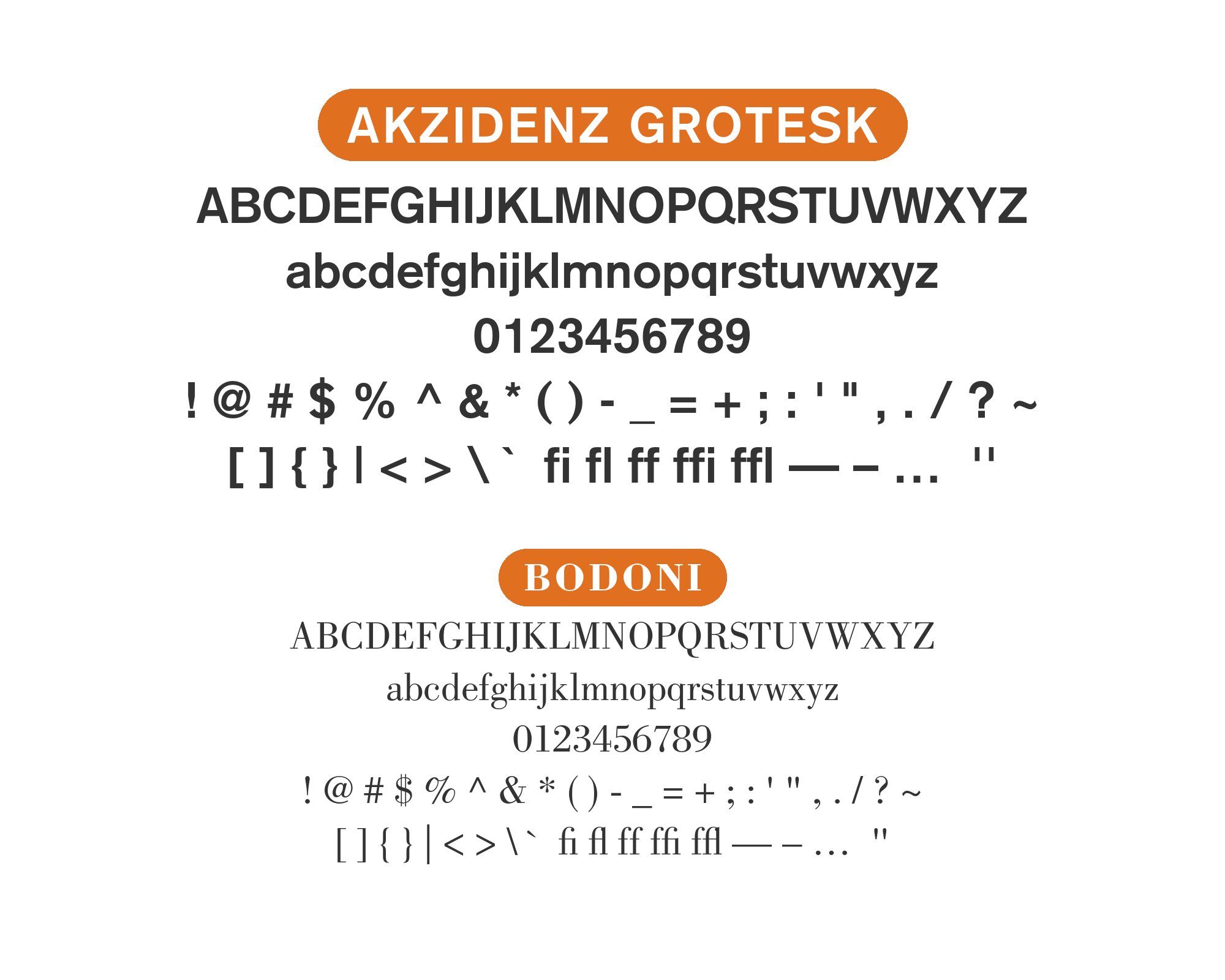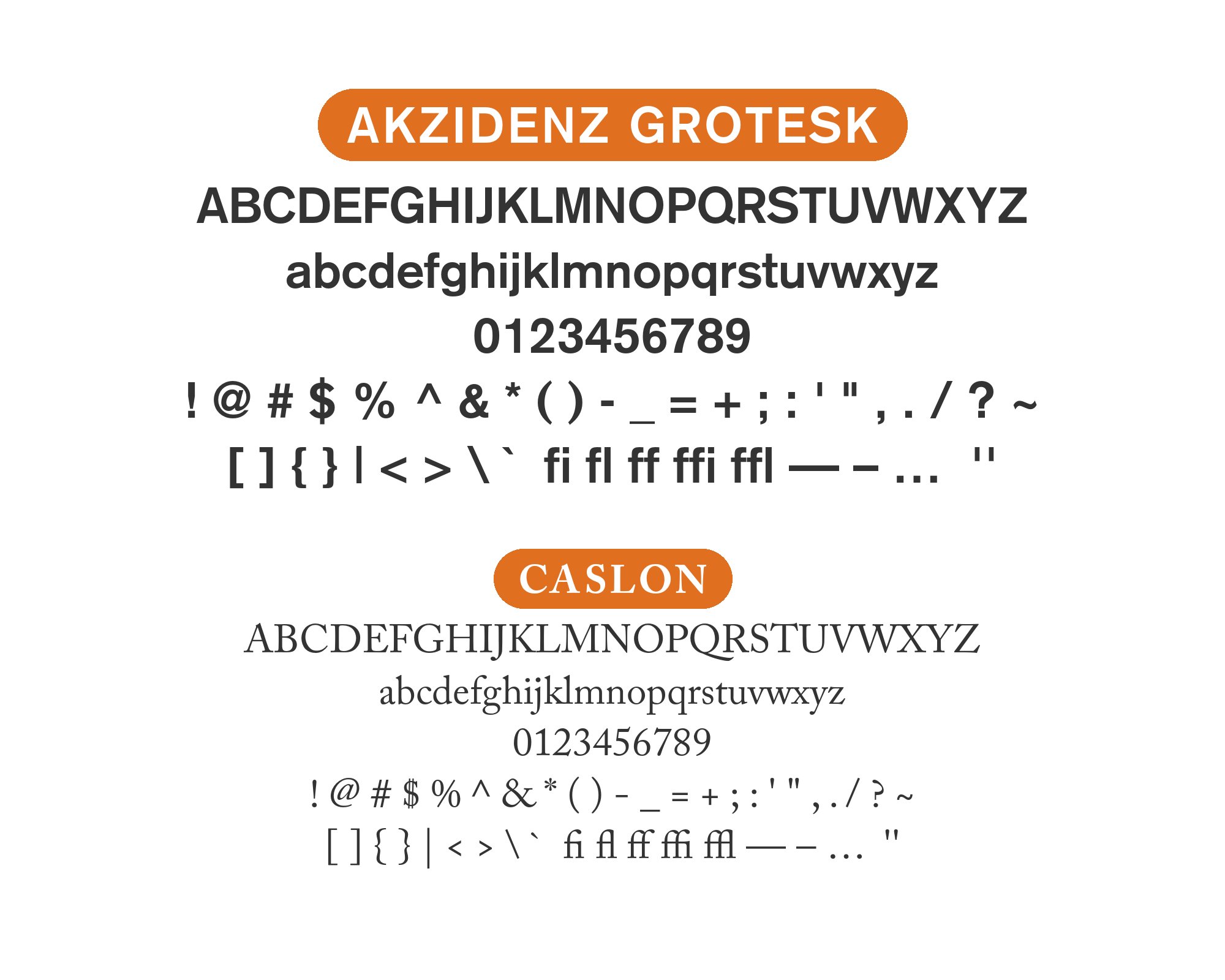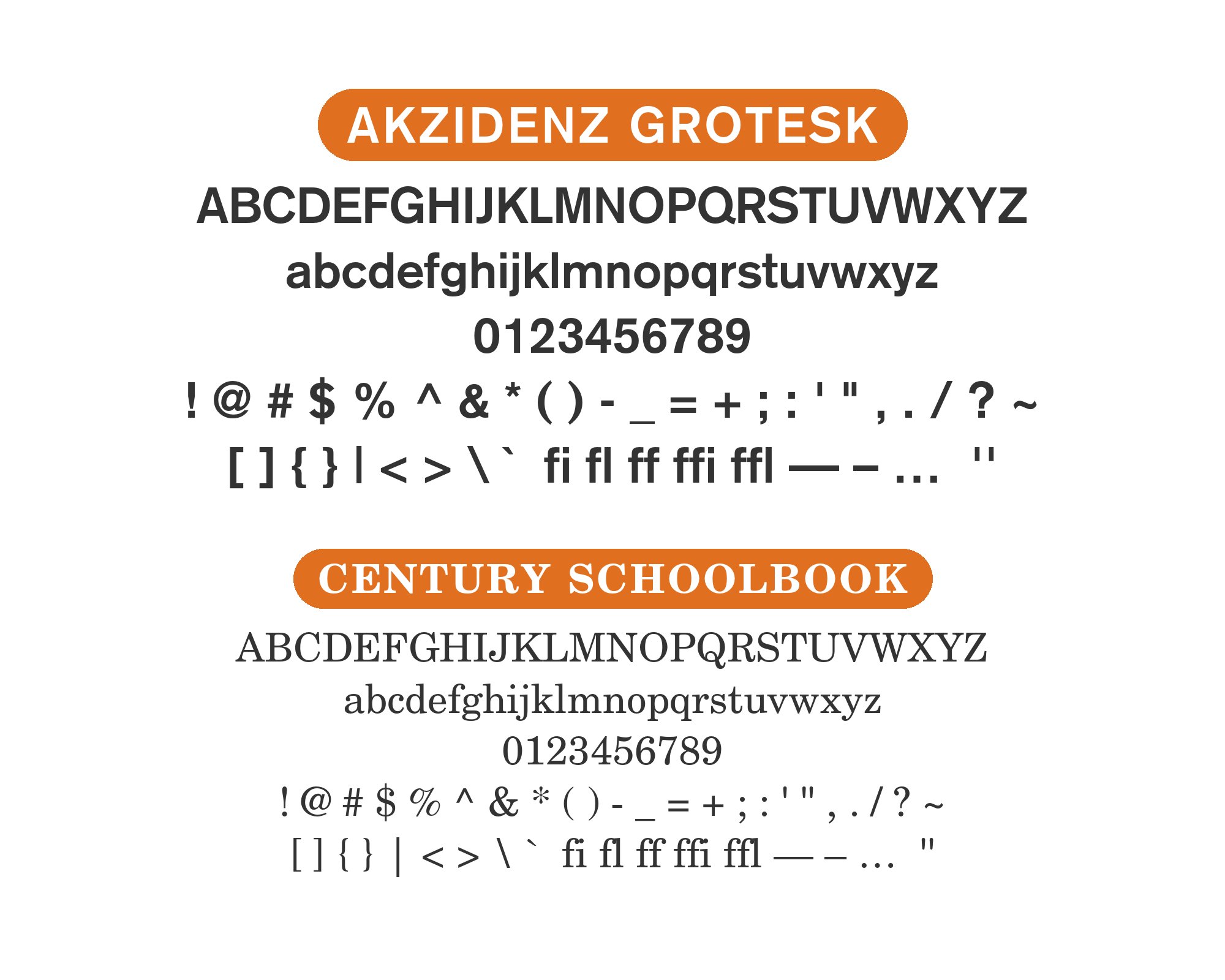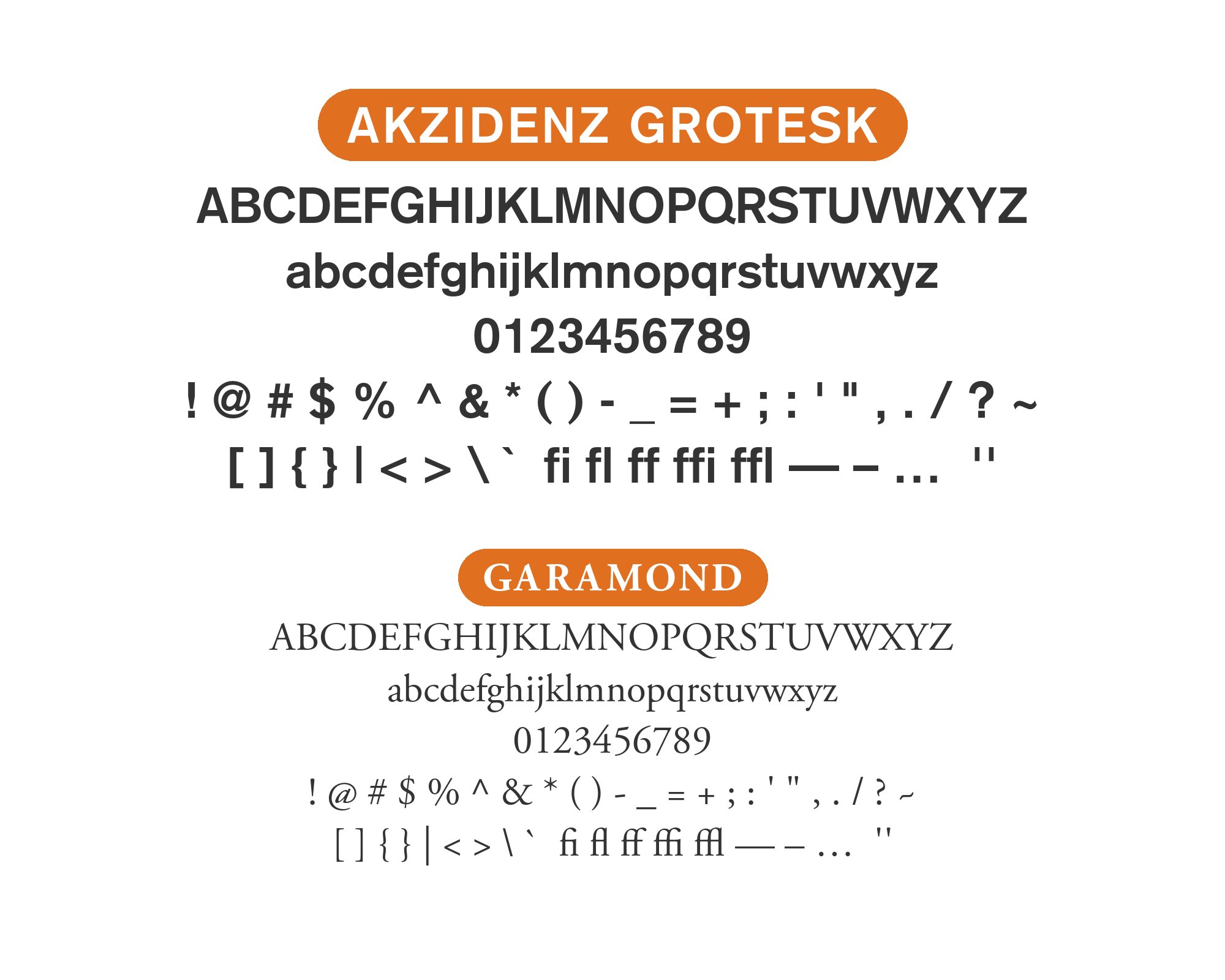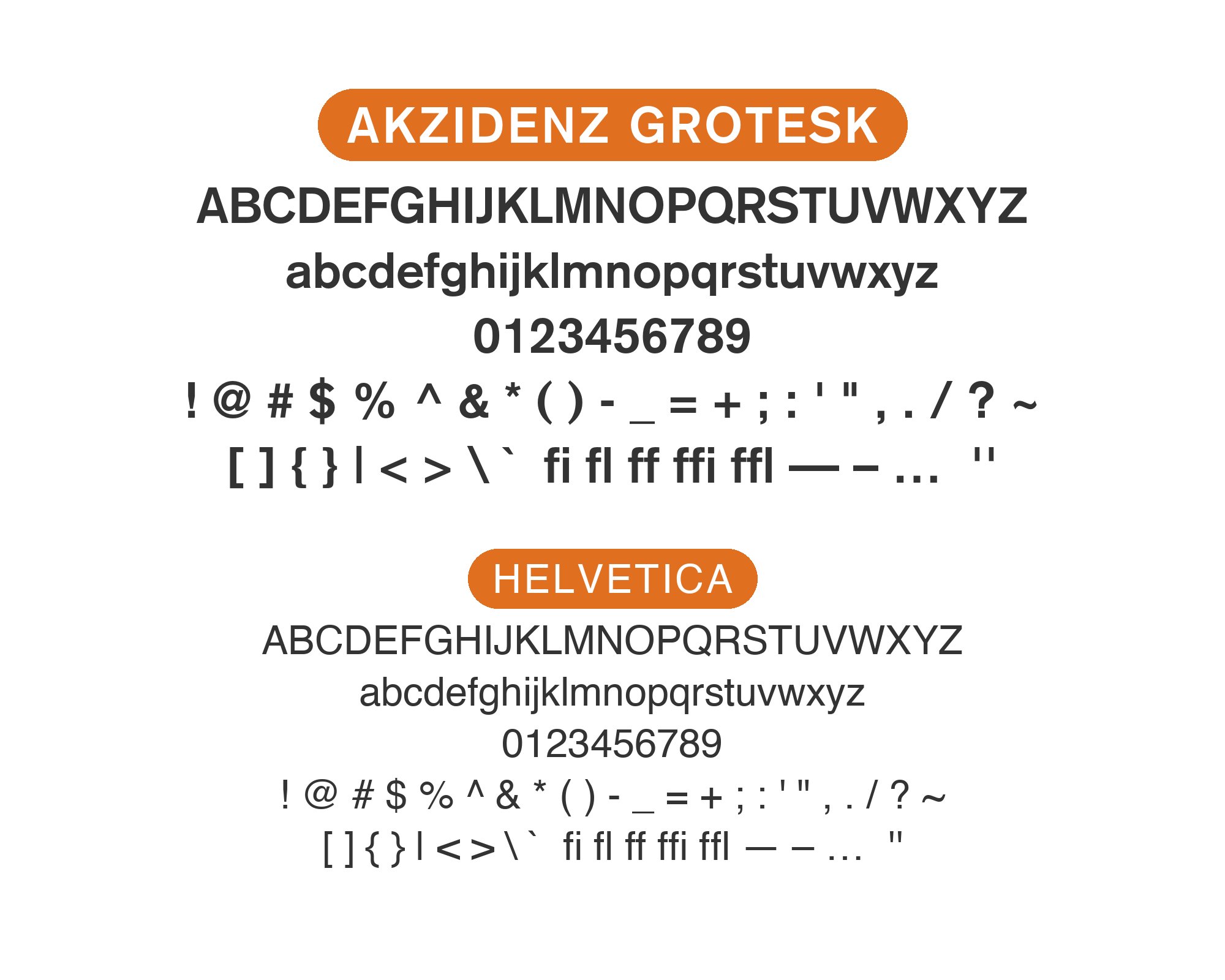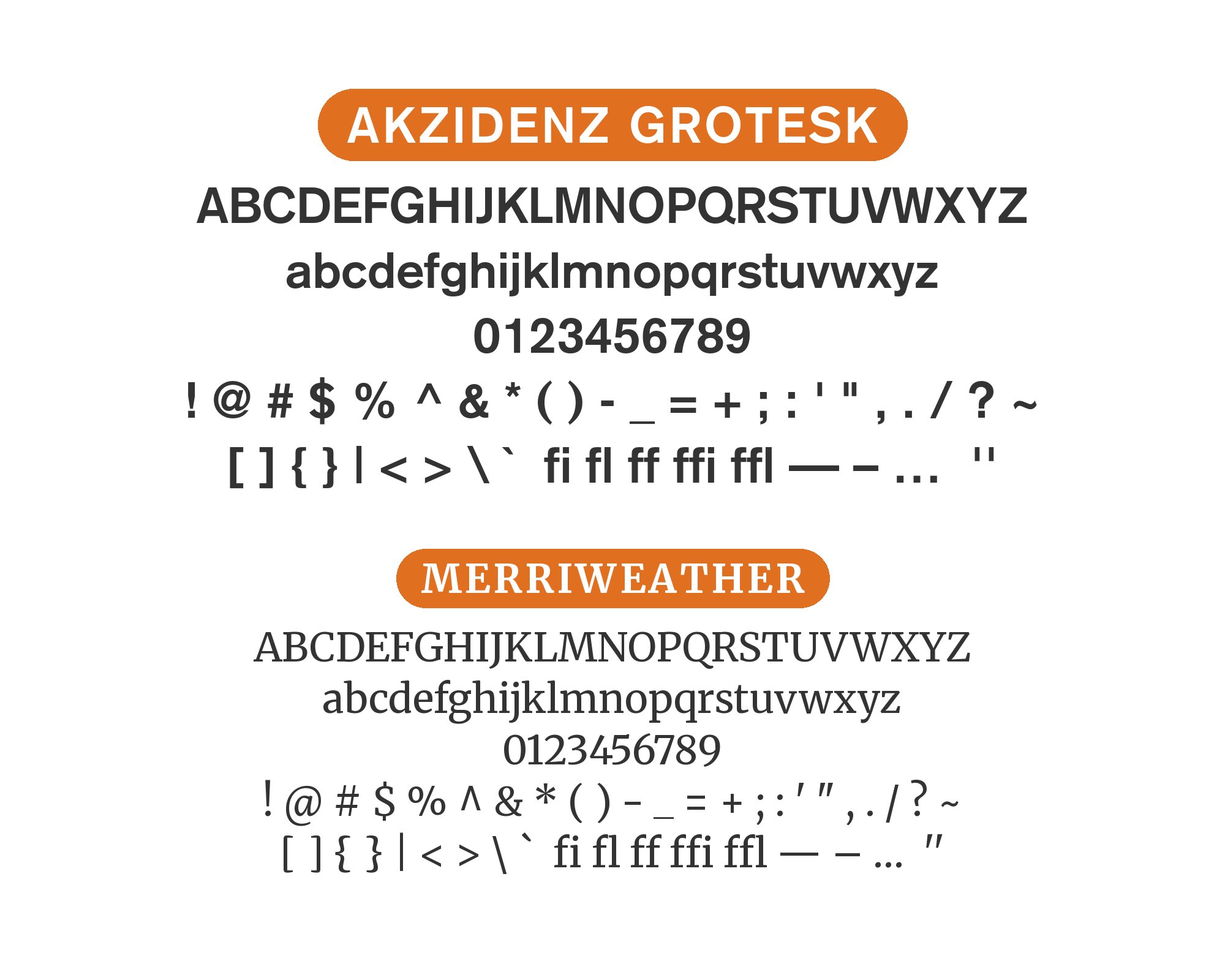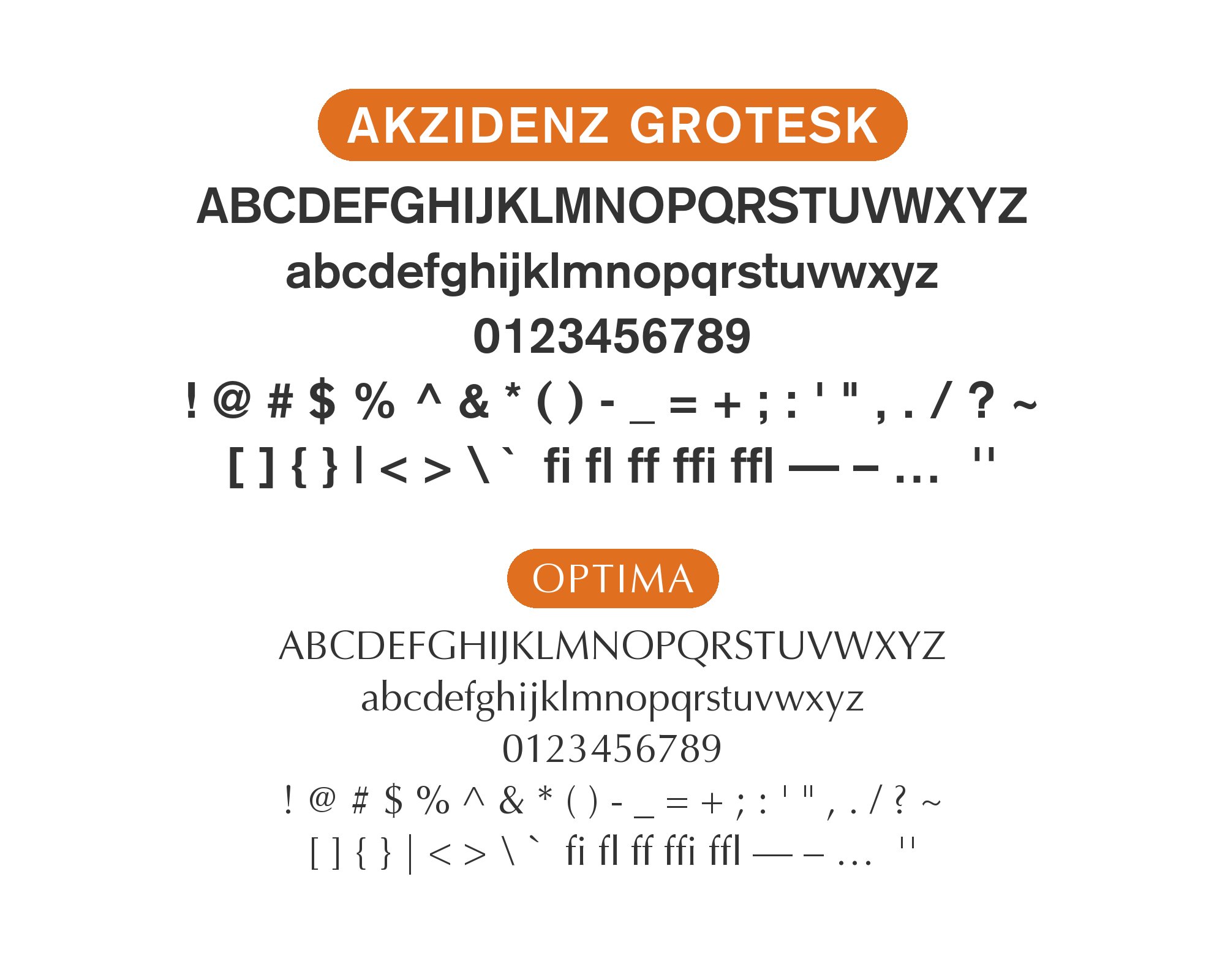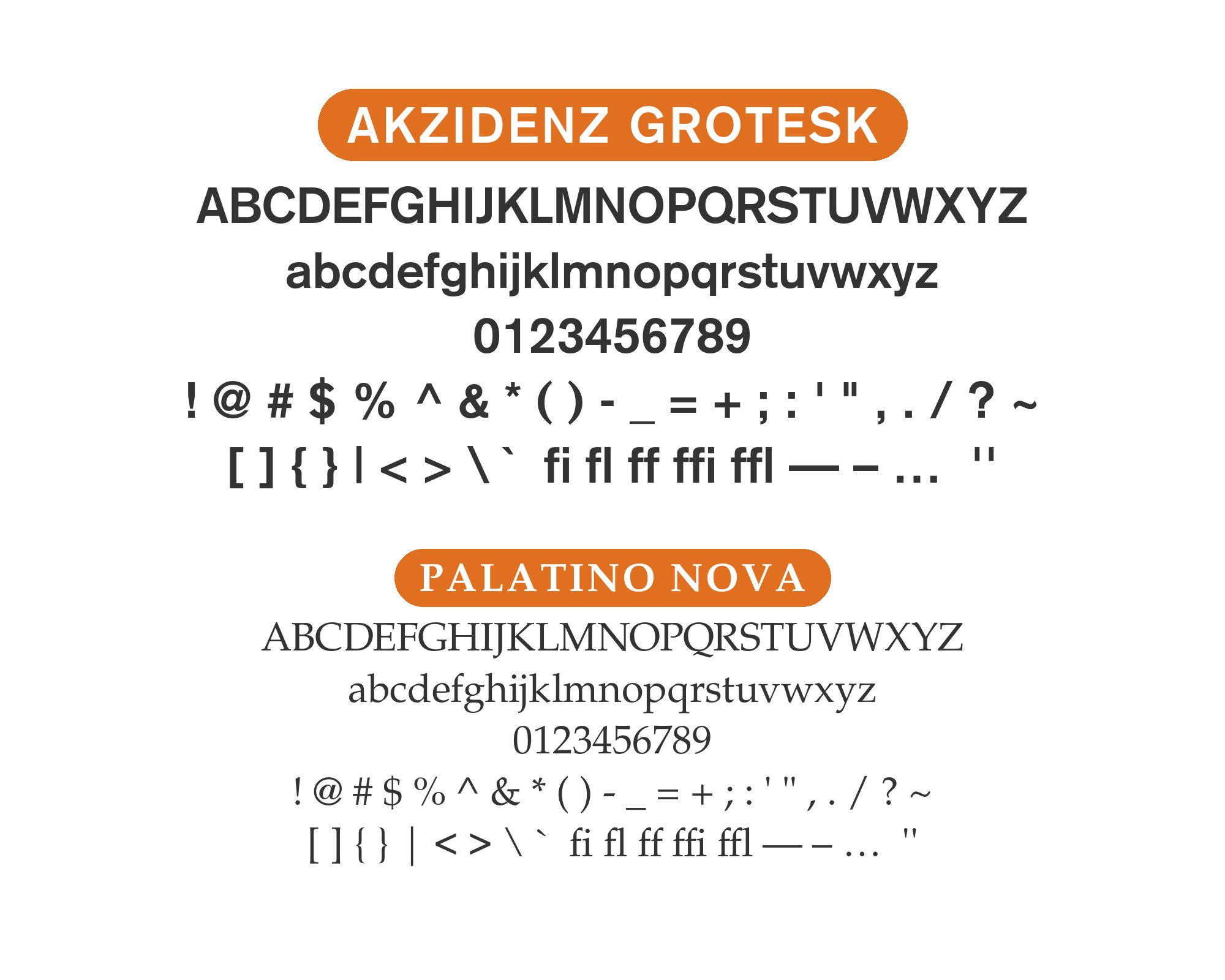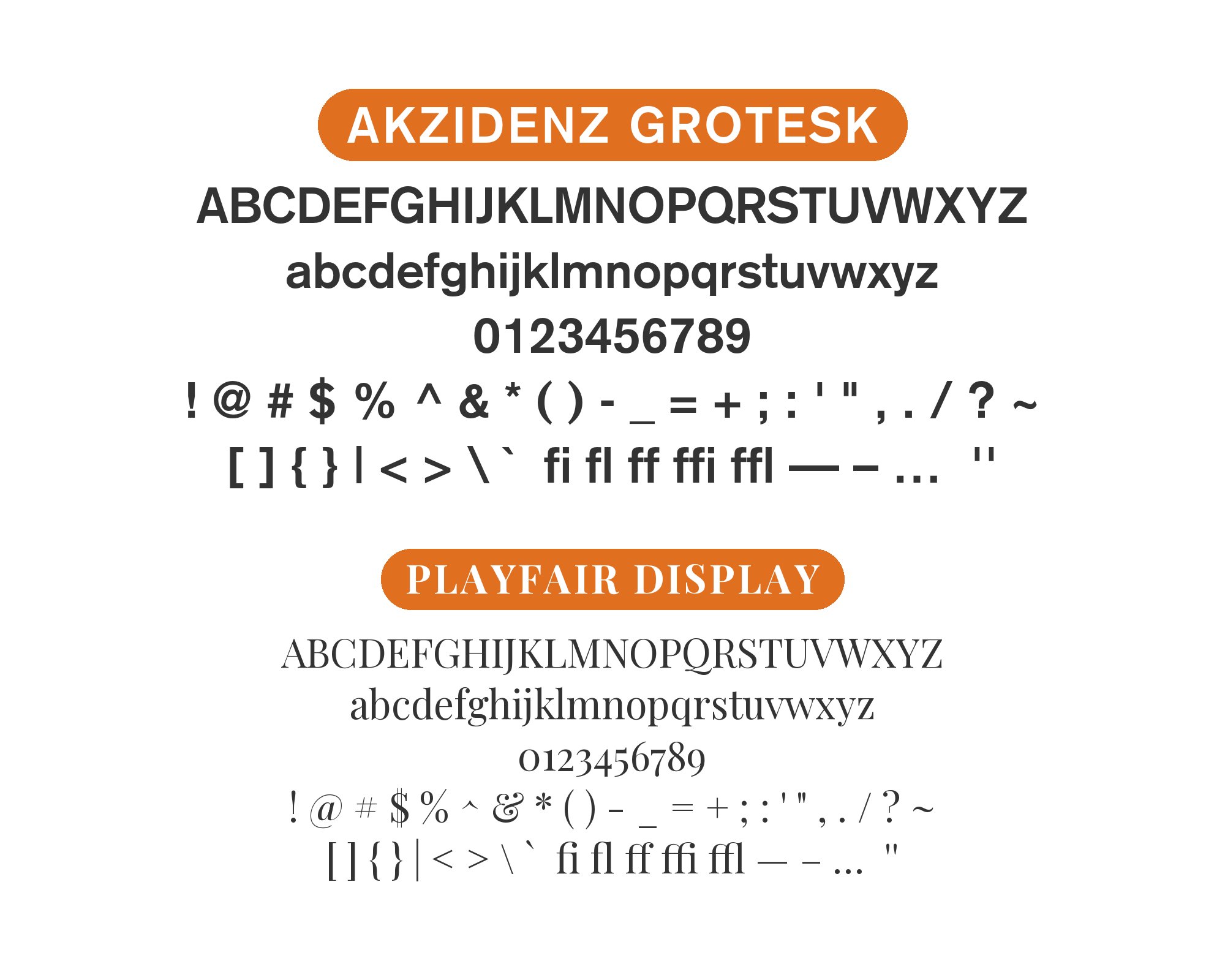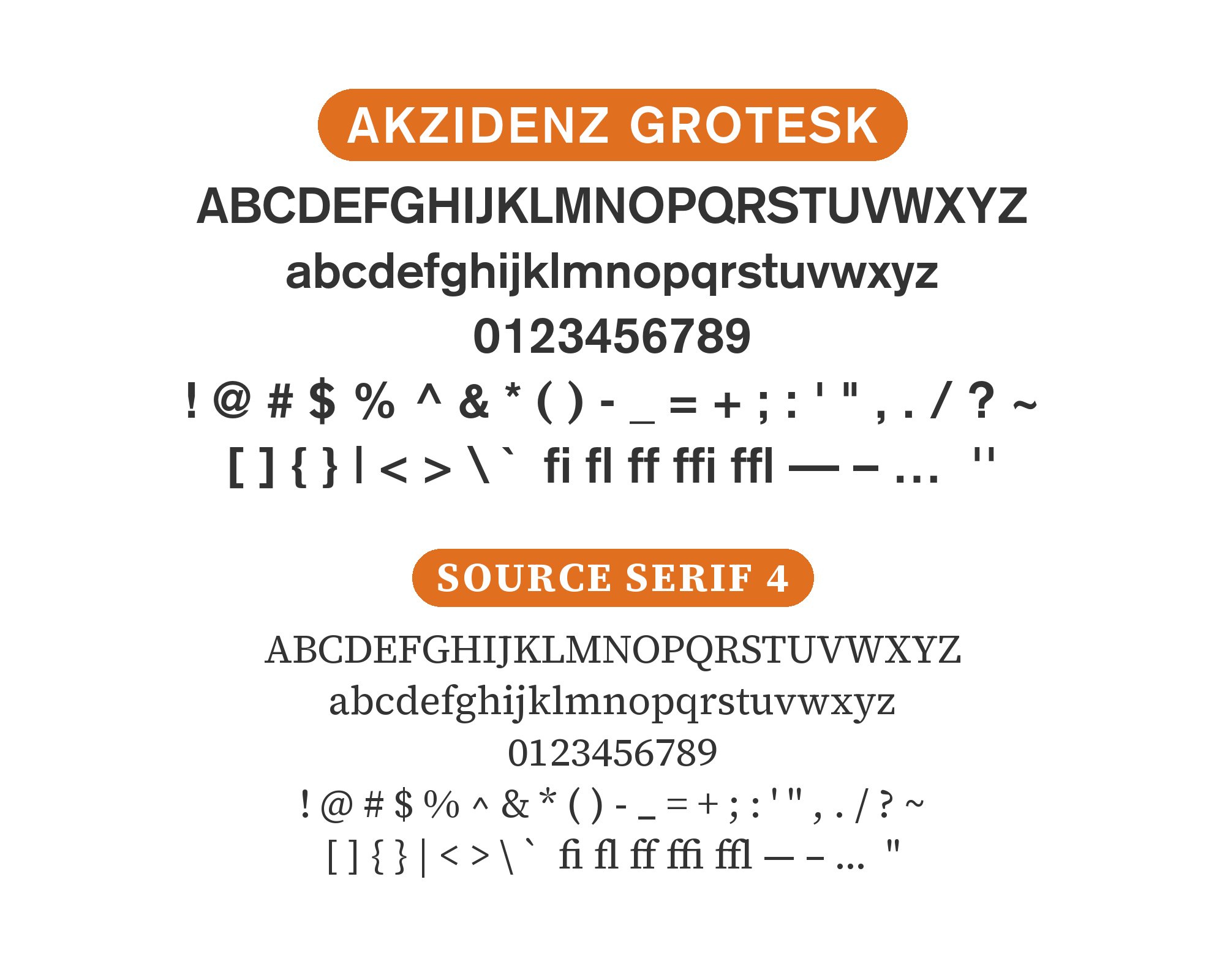
Akzidenz Grotesk pairs great with Century Schoolbook, Univers and Helvetica. All 13 pairings are shown below in real rendered specimens, with the reason each one works.
What fonts go with Akzidenz Grotesk? The pairings below each come with a reason they work.
Akzidenz Grotesk is a working typeface, not a novelty. These combinations give you different ways to set a clear hierarchy, from closely related grotesques to expressive serifs.
1. Century Schoolbook
A dense, textbook-legibility serif with sturdy strokes gives Akzidenz-Grotesk’s cool, undecorated grotesque forms a warm, familiar counterweight for body text — the same logic that makes it a recurring choice across six decades of real Akzidenz-Grotesk usage, from a 1964 Hank Williams compilation to present-day recommendation lists.
See Details2. Univers
Univers takes inspiration from Akzidenz-Grotesk, so pairing them isn’t about contrast but about disciplined consistency — designers have leaned on this exact combination since a 1962 Tony Bennett sleeve and a 1969 Rolling Stones cover, treating the two as interchangeable members of the same typographic family.
3. Helvetica
Helvetica was based chiefly on Akzidenz-Grotesk, so setting them side by side reads as a lineage statement. Their similar proportions give you a subtle “before and after” without making the two feel identical.
4. Bodoni
Bodoni’s razor-thin hairlines and extreme stroke contrast are the foil a 1966 Random House book jacket used against a grotesque this plain — the serif carries drama and formality while Akzidenz-Grotesk stays neutral and workmanlike underneath.
Book an Hour5. Garamond
An old-style book serif with humanist warmth and moderate contrast sits underneath Akzidenz-Grotesk’s plain, undecorated grotesque headlines — a classic “history under neutrality” split. Typewolf’s real-project gallery shows this exact pair on Work & Co’s studio site (2015).
6. Optima
Optima sits between sans and serif — its flared, tapering strokes give it a chiseled, inscriptional warmth that neither fights nor echoes Akzidenz-Grotesk’s uniform strokes, so the two read as related but distinct voices. Typewolf’s gallery shows the pair on Confetti Studio’s site (2015).
7. Caslon
Caslon’s slight irregularity and sturdy serifs read as unhurried and trustworthy next to Akzidenz-Grotesk’s mechanical neutrality — the old printer’s adage “when in doubt, use Caslon” put into practice on the Cubicle site in Typewolf’s gallery (2019), where Caslon anchors body copy under grotesque headlines.
8. Merriweather
A sturdy, screen-tuned serif with generous curves keeps long-form body copy comfortable at small sizes, letting Akzidenz-Grotesk’s cool, undecorated forms stay reserved for headlines and navigation.
9. Playfair Display
Playfair Display is a high-contrast transitional serif with sharp, bracketed serifs and generous swash capitals, drawing on 18th-century type models rather than any relation to Akzidenz-Grotesk’s plain 1890s grotesque forms. That distance is the point: Playfair carries editorial drama in headlines while Akzidenz-Grotesk stays neutral and workmanlike in the surrounding text. One experimental book design uses both Playfair Display and Akzidenz Grotesk BQ Light across its pages.
10. Palatino Nova
Palatino’s broad, calligraphy-rooted old-style letterforms give body text a humanist ease that plays off Akzidenz-Grotesk’s rigid grid discipline. MyFonts’ own pairing guide for the family calls for “serif typefaces with distinctive design characteristics,” and Palatino’s Renaissance-inspired shapes qualify as distinctive as old-style serifs get.
11. Walbaum
Walbaum’s needle-thin hairlines and extreme vertical stress are the sharpest possible foil to Akzidenz-Grotesk’s even, monoline strokes — a high-drama Didone contrast MyFonts recommends directly. Akzidenz-Grotesk itself was released by the Berthold foundry, and Walbaum’s type was later sold by that same Berthold foundry, so the pairing has a quiet family link beneath the contrast.
12. Zilla Slab
Zilla Slab, Mozilla’s core typeface, pairs bracketed, rectangular slab serifs with humanist warmth in its curves and italic. That warmth gives a headline enough personality to stand apart from Akzidenz-Grotesk’s plain, undecorated grotesque without breaking rank with it in the surrounding body copy.
13. Source Serif 4
Source Serif was drawn as the serif companion inside Adobe’s Source superfamily, alongside a plain, functional sans in the same spirit as Akzidenz-Grotesk. Its moderate contrast and sturdy, bracketed serifs bring warmth to body text without the rational discipline of the grotesque headlines above it ever feeling contradicted. One site’s colophon sets display text in Akzidenz-Grotesk Pro Bold Extended and names Source Serif 4 as a fallback for reading copy.
There are no absolute rules for font pairing, just principles to guide you. The key is contrast—in weight, in style (serif vs. sans-serif), or in personality. Akzidenz Grotesk is versatile enough to play well with many different typefaces.
Trust your eye, experiment freely, and remember that the best pairing is the one that serves your content and audience. Typography should enhance communication, not complicate it.